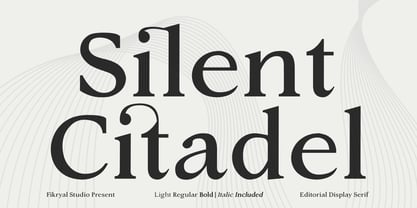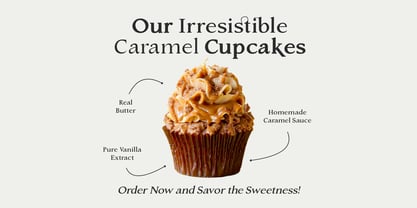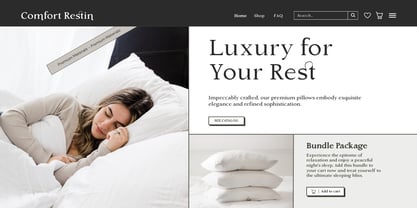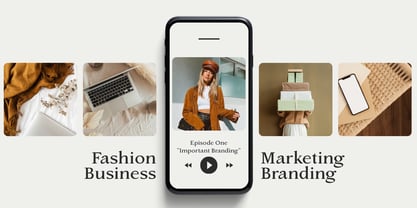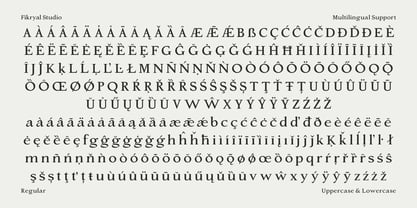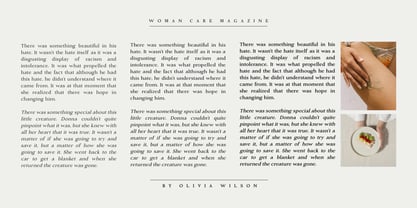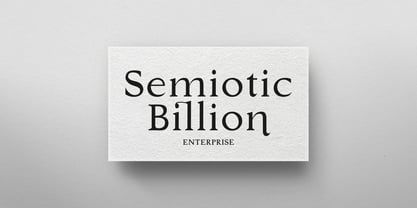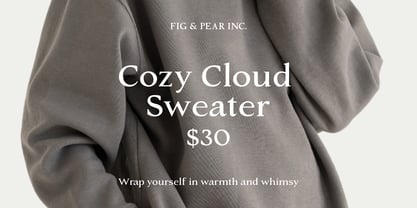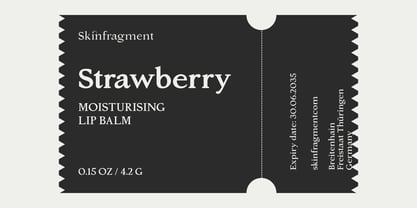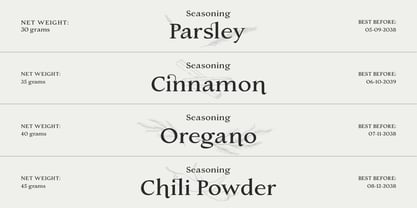
Silent Citadel
by Fikryal
The Silent Citadel Font Family was designed by Muhammad Fikry and published by Fikryal. Silent Citadel contains 6 styles and family package options. More about this family
Silent Citadel Editorial Display Serif Silent Citadel is a refined editorial display serif designed for sophisticated, high-impact typography. Built with confident proportions and sharp serif detailing, this typeface delivers a strong yet elegant presence ideal for contemporary editorial design. The family includes six styles: Light Light Italic Regular Italic Bold Bold Italic Each weight is carefully balanced to maintain consistency across layouts while offering versatility for hierarchy, contrast, and expressive typography. Silent Citadel features carefully crafted ligatures and selected lowercase alternates, allowing designers to achieve more distinctive and fluid typographic compositions. The alternate forms subtly enhance rhythm and character without compromising clarity. With its high-contrast structure and editorial tone, Silent Citadel performs beautifully in magazine headlines, luxury branding, fashion campaigns, logo design, and premium packaging. Designed to bring timeless sophistication into modern layouts. Features • 6 Styles (Light, Regular, Bold + Italics) • Editorial Display Serif • Ligatures Included • Lowercase Alternates • High-Contrast Serif Structure • Suitable for Large-Scale Typography Recommended Use Editorial Design Magazine Headlines Luxury Branding Logo Design Fashion & Beauty Premium Packaging Website Headers
Designers: Muhammad Fikry
Foundry: Fikryal